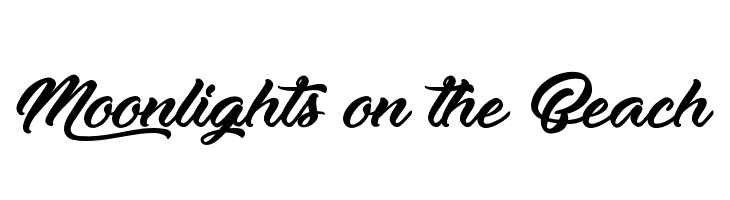
Chaque police phare se distingue par équilibre, lisibilité et polyvalence. Vous trouverez des sans‑serifs modernes, des scripts élégantes, des serifs vintage et des displays minimalistes.
A bold, geometric font with a futuristic and modern aesthetic.
A modern, rounded sans-serif font with a bold weight and clean design.
A playful, casual handwritten font with uneven strokes and a natural flow.
A bold, decorative font with sharp edges and a vintage, three-dimensional shadow effect.
A bold, italicized font with a modern and dynamic style.
A sleek, modern italic font with medium weight and smooth strokes.
A bold, geometric font with a structured, architectural style.
A horror-themed font with jagged, brushstroke-style letters.
A bold, expressive handwritten font with fluid, connected strokes.
A bold, hand-drawn font with a playful and expressive style.
A dynamic, cursive script font with a fluid, handwritten style.
A condensed uncial-style font with a medieval yet modern aesthetic.
A bold, playful script font with smooth, flowing characters.
A bold, dynamic font with sharp, angular strokes and a hand-drawn feel.
A bold, stencil-style font with high contrast and tight spacing.
A modern, semi-condensed sans-serif font with a light weight and excellent legibility.
A bold, expressive handwritten font with a graffiti-like style.
A modern, rounded font with smooth curves and balanced spacing.
A dot matrix font with a retro, digital scoreboard style.
A bold, angular font with a futuristic, robotic design.
A playful, rounded sans-serif font with smooth curves and uniform strokes.
A playful, italicized font with a handwritten style and bold strokes.